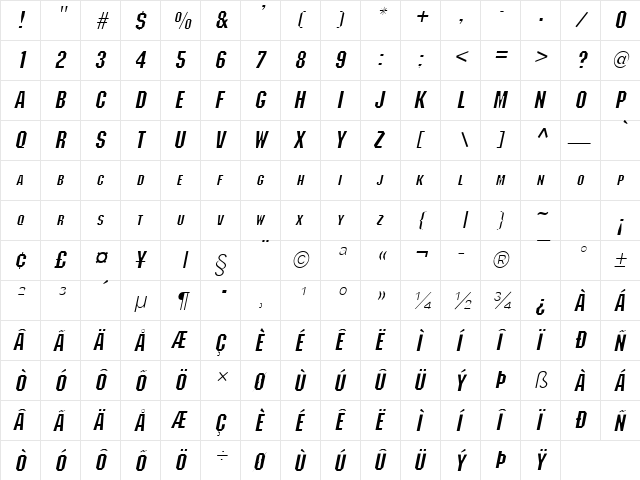
Block Italic
Design Context for Block Typeface
Block takes a measured approach to typography — its balanced proportions and neutral character make it a reliable workhorse for both digital and print work. The dynamic lean of this cut emphasises speed and emphasis in any layout.
Pro Tip: Use Block for emphasis, pull quotes, and subheadings where its slanted energy can add rhythm to the layout.